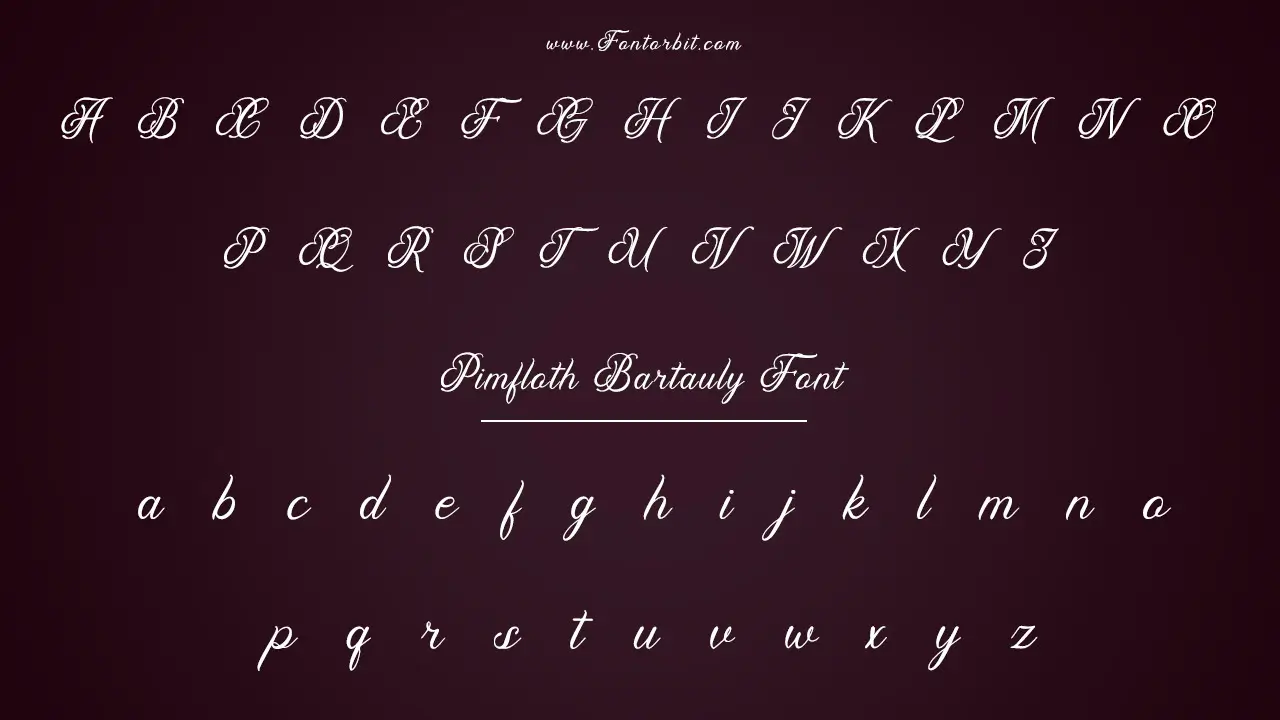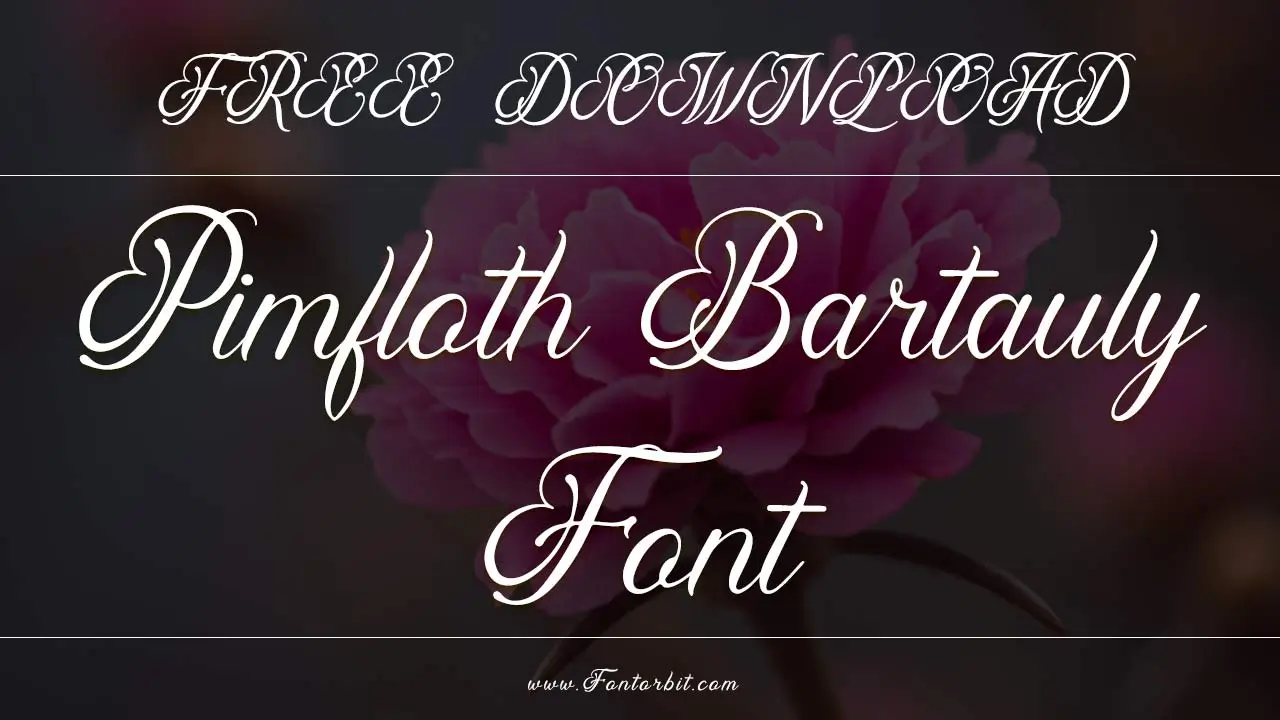
Pimfloth Bartauly is a stunning script font designed by Dede Nugraha. This elegant and stylish font family is perfect for logos, branding, invitations, and product packaging. It enhances any project with its smooth calligraphy-inspired strokes and sophisticated aesthetic, making it a favorite among designers.
Pimfloth Bartauly Font Family
- Pimfloth Bartauly Regular
- Pimfloth Bartauly Italic
Style: | Calligraphy |
Why Designers Love Pimfloth Bartauly
A Font That Elevates Elegant Branding
Pimfloth Bartauly is a calligraphy-style script font designed to bring sophistication and elegance to branding projects. Whether crafting a luxury logo, designing product packaging, or creating book covers, this font delivers a refined and professional aesthetic that makes brands stand out.
A Top Choice for Invitations & Greeting Cards
The graceful curves and stylish script of Pimfloth Bartauly make it an excellent font for wedding invitations, greeting cards, and other special event stationery. It conveys warmth and sophistication, setting the perfect tone for celebrations and personal messages.
Enhancing Photography Watermarks & Posters
Photographers and graphic designers use Pimfloth Bartauly to create elegant watermarks that subtly brand their images without distracting them from the main subject. Additionally, its fluid and artistic strokes make it an ideal choice for poster designs, enhancing visual appeal while maintaining readability.
How To Use Pimfloth Bartauly In Your Projects
- Logos & Branding: Adds an elegant and unique touch to brand identities.
- Product Packaging: Works beautifully on labels, shopping bags, and other packaging elements.
- Book Covers & Posters: Creates a stylish and visually appealing layout.
- Photography Watermarks: Helps maintain professional brand consistency.
- Invitation Cards & Quotes: Perfect for romantic and stylish typography.
5.Why Is Pimfloth Bartauly Great For Branding?
Its stylish calligraphy, elegance, and readability make it a top choice for branding projects.